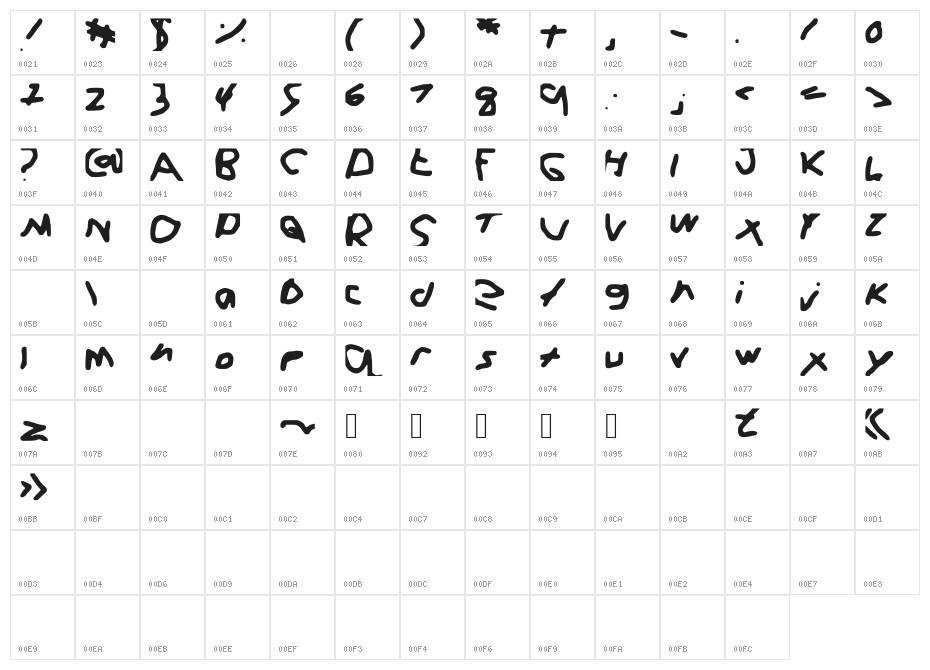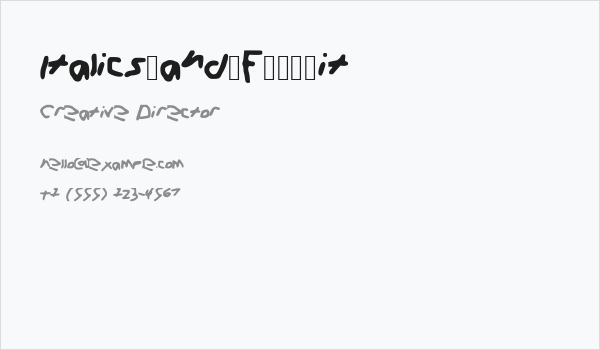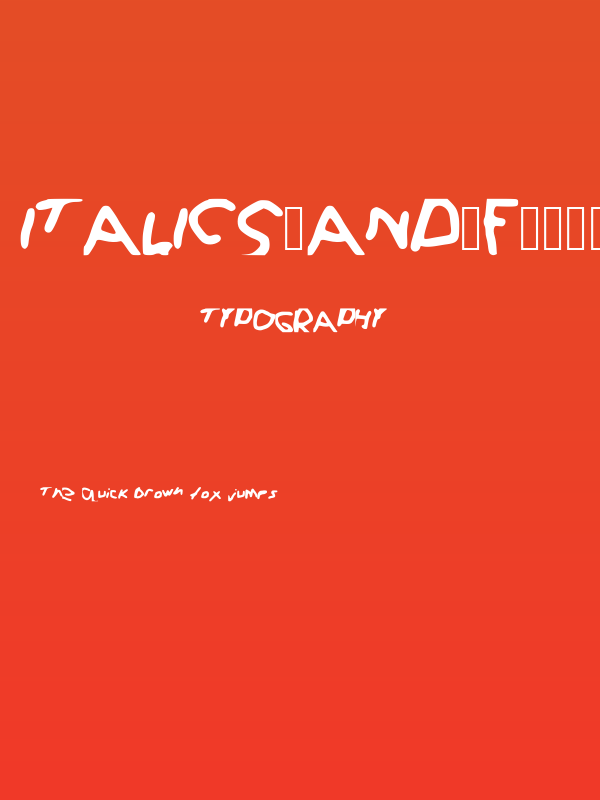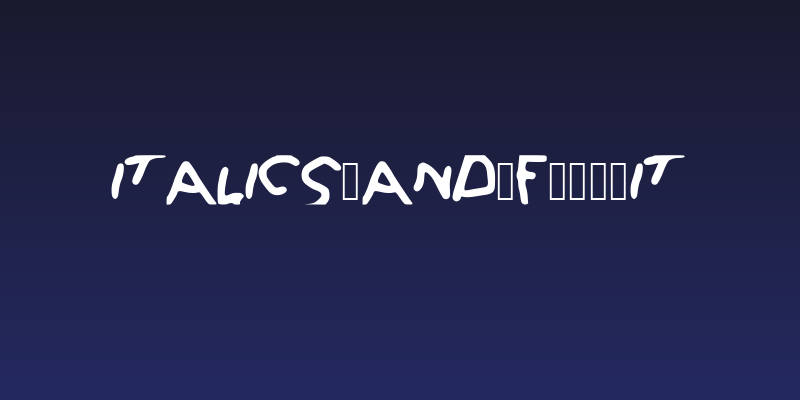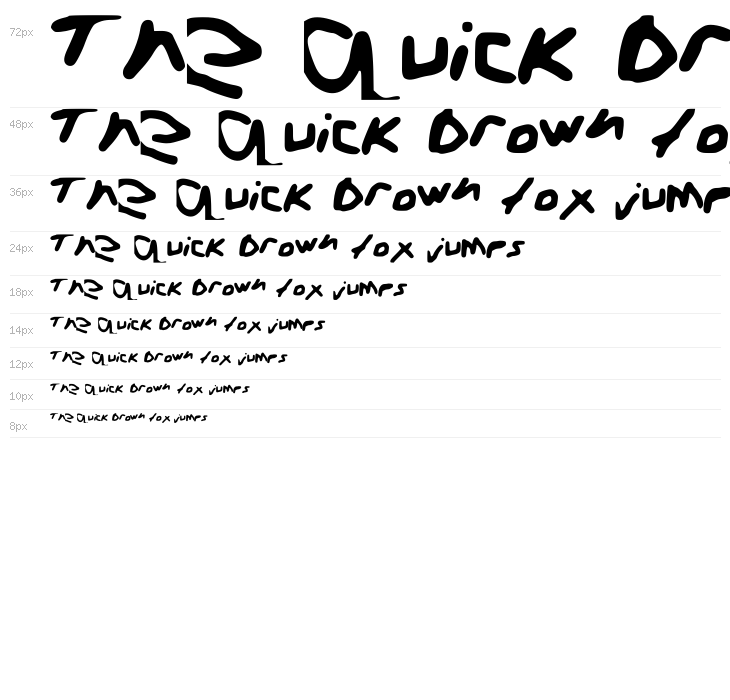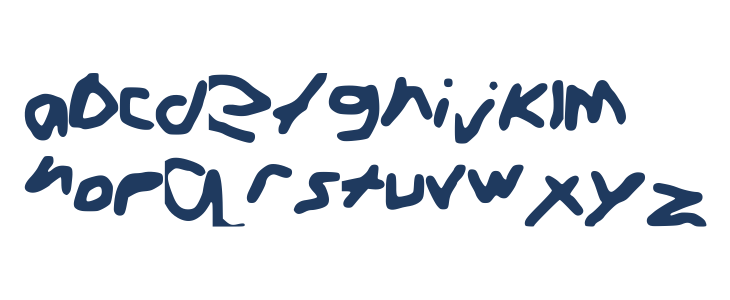
Italics_and_F____it Font
Italics_and_F____it Description
This font features a bold, expressive style with a handwritten appearance. The characters are irregular and have a playful, artistic flair, making them stand out with their unique shapes and curves. The uppercase and lowercase letters maintain a consistent thickness, contributing to a cohesive look. The numbers and special characters follow the same design principles, ensuring uniformity across the font. This font's distinctiveness is enhanced by its dynamic and energetic strokes, which give it a lively and informal feel.
Proposed ProjectsIdeal for creative projects such as posters, invitations, and artistic branding. It can also be used for headlines in magazines or websites that aim for a casual and fun aesthetic.